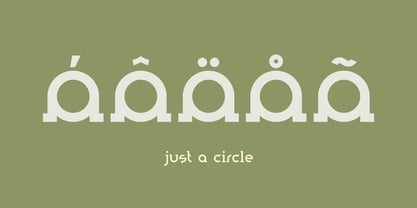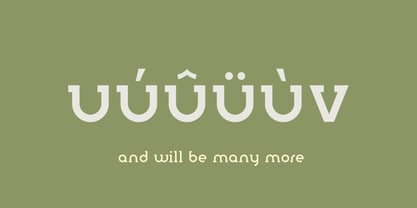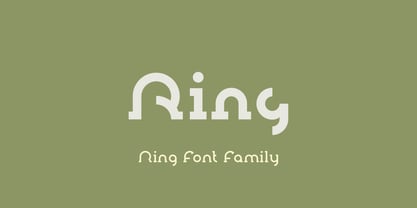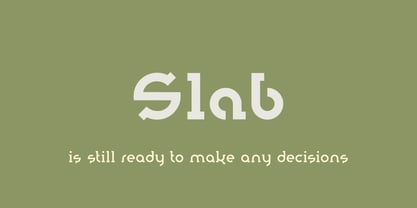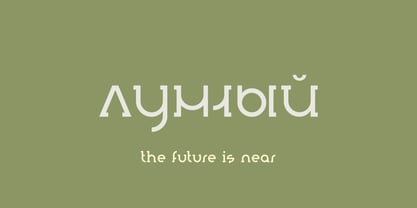
Ring Slab
Die Schriftfamilie Ring Slab wurde von Dmitry Ochakov entworfen und von Ochakov veröffentlicht. Ring Slab enthält 16 Stile und Familienpaketoptionen.
Hope I made the world a little better. It's a great honor for me to be here. I'm super excited to present the next set of the Ring font family - Ring Slab.
Ring Slab is a geometric slab serif typeface based on the original Ring font and inspired by classical writers. Ring Slab comes in 16 styles, ranging from Thin to Black. Fonts of the Ring Family is the perfect choice for headlines, logos, branding, packaging, publications, and websites.
Ring Slab is still ready to take any decisions. The future of the big font family has come closer!